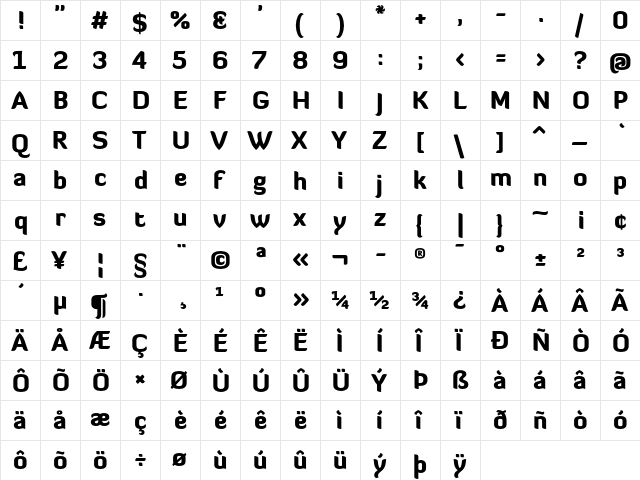
Diavlo Black
| Foundry | Jos Buivenga |
| Designer | Jos Buivenga |
Design Context for Diavlo Typeface
Diavlo offers clean, dependable letterforms without strong stylistic allegiance, making it a practical choice for designers who need flexibility.
Pro Tip: Pair Diavlo with a font of contrasting weight or personality to build a more expressive typographic hierarchy.